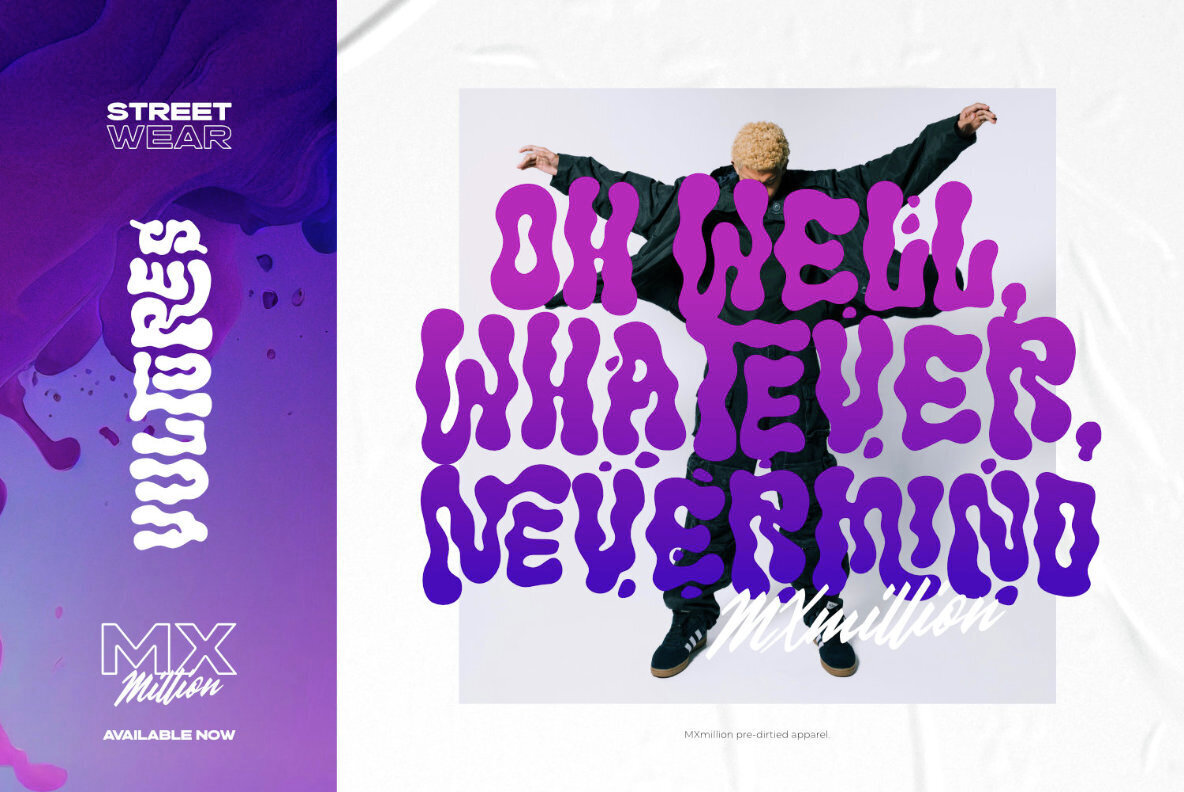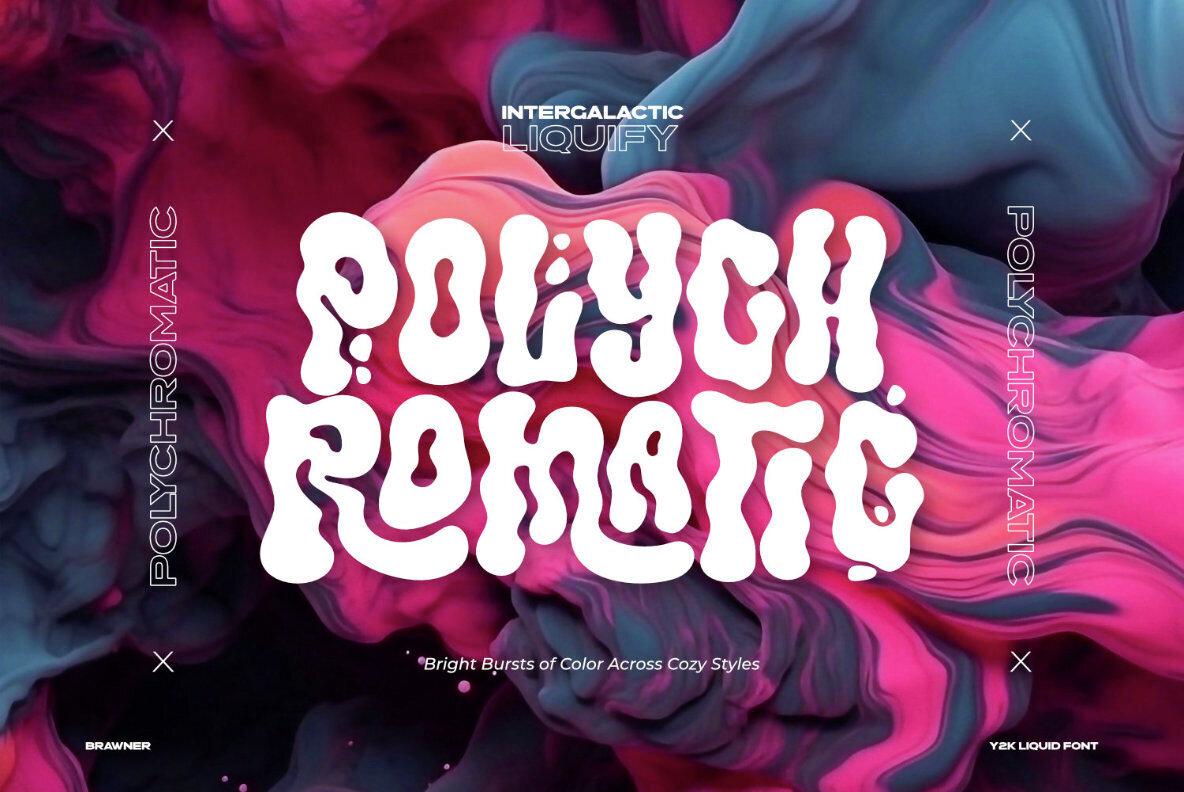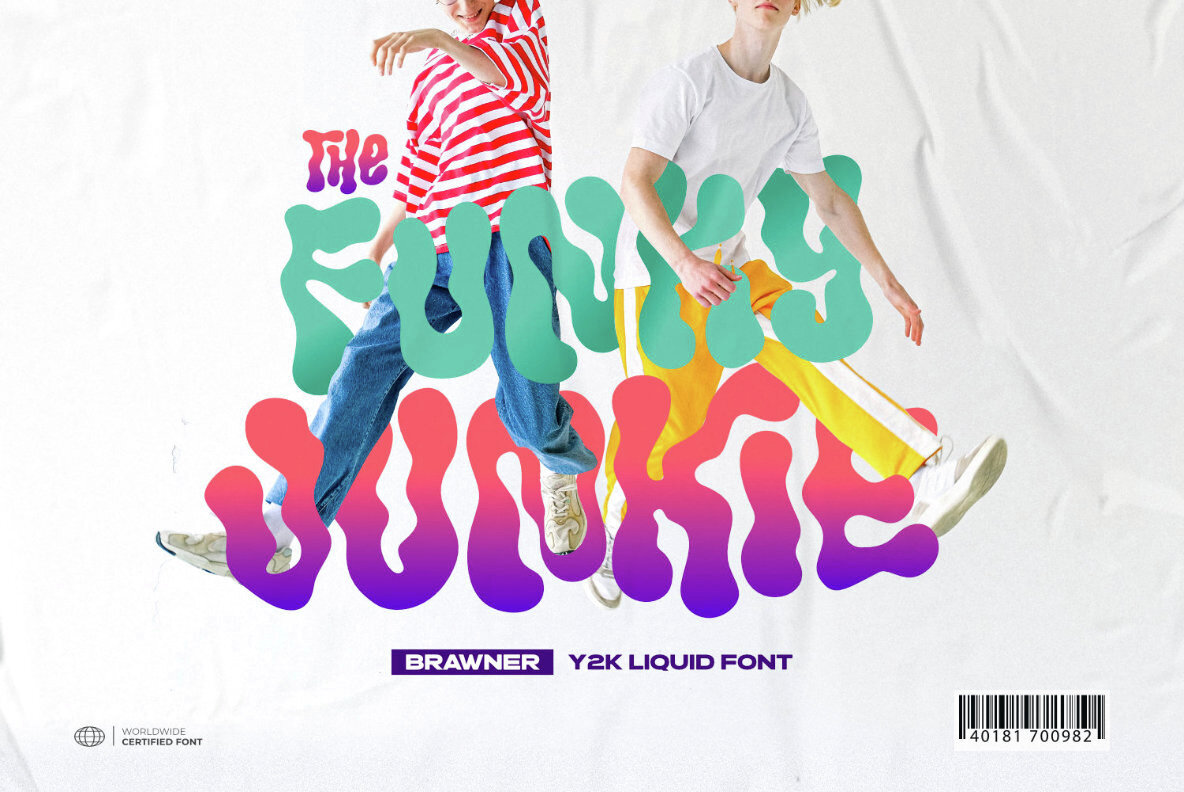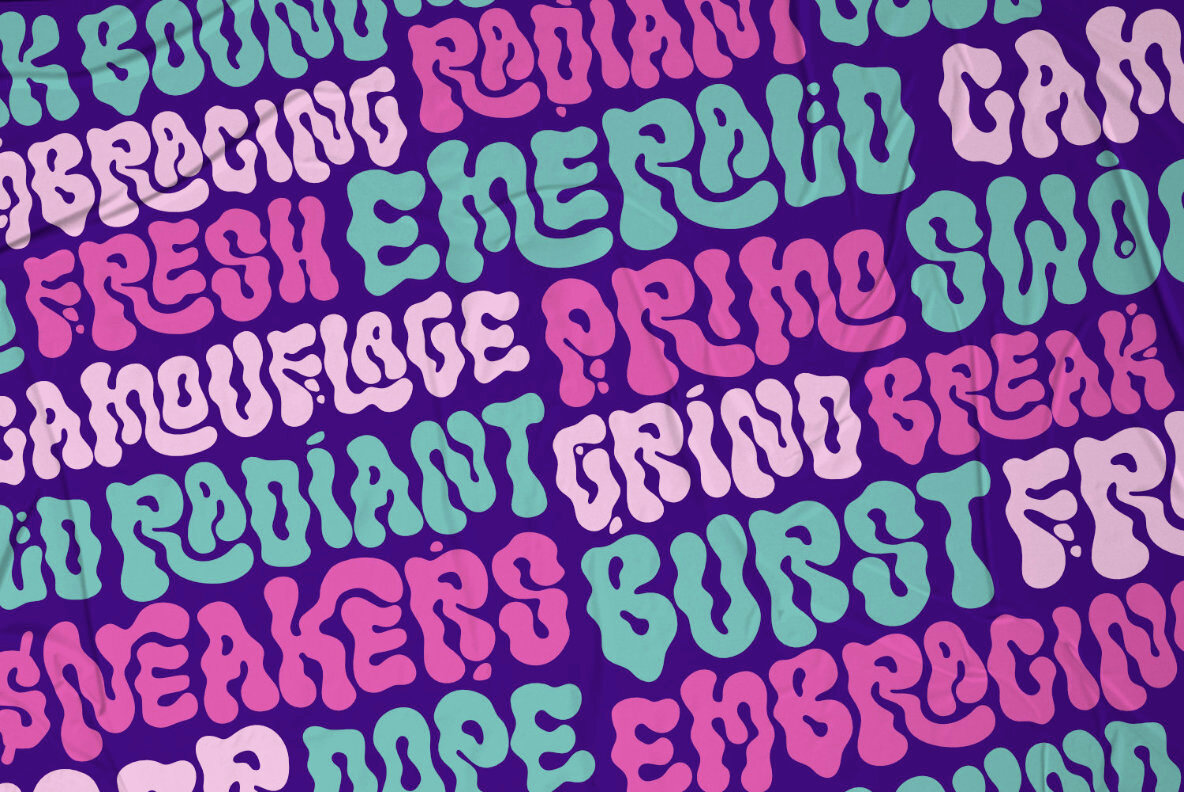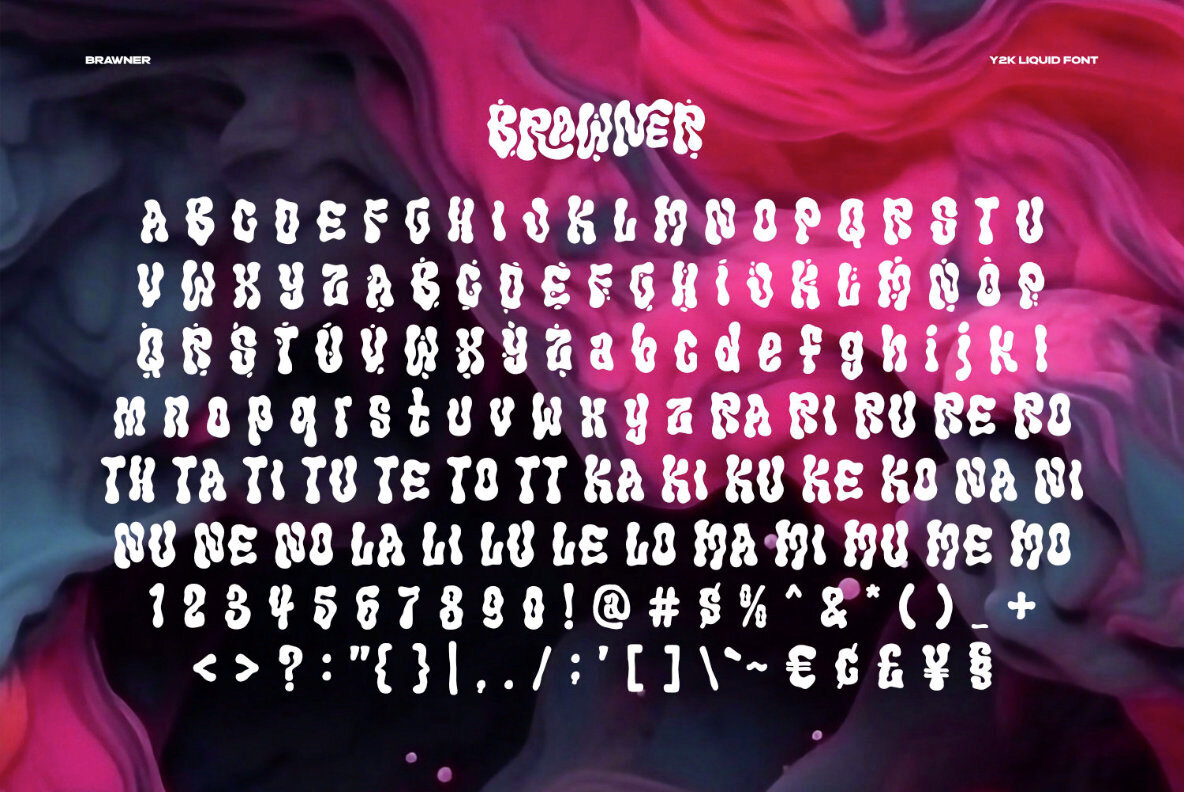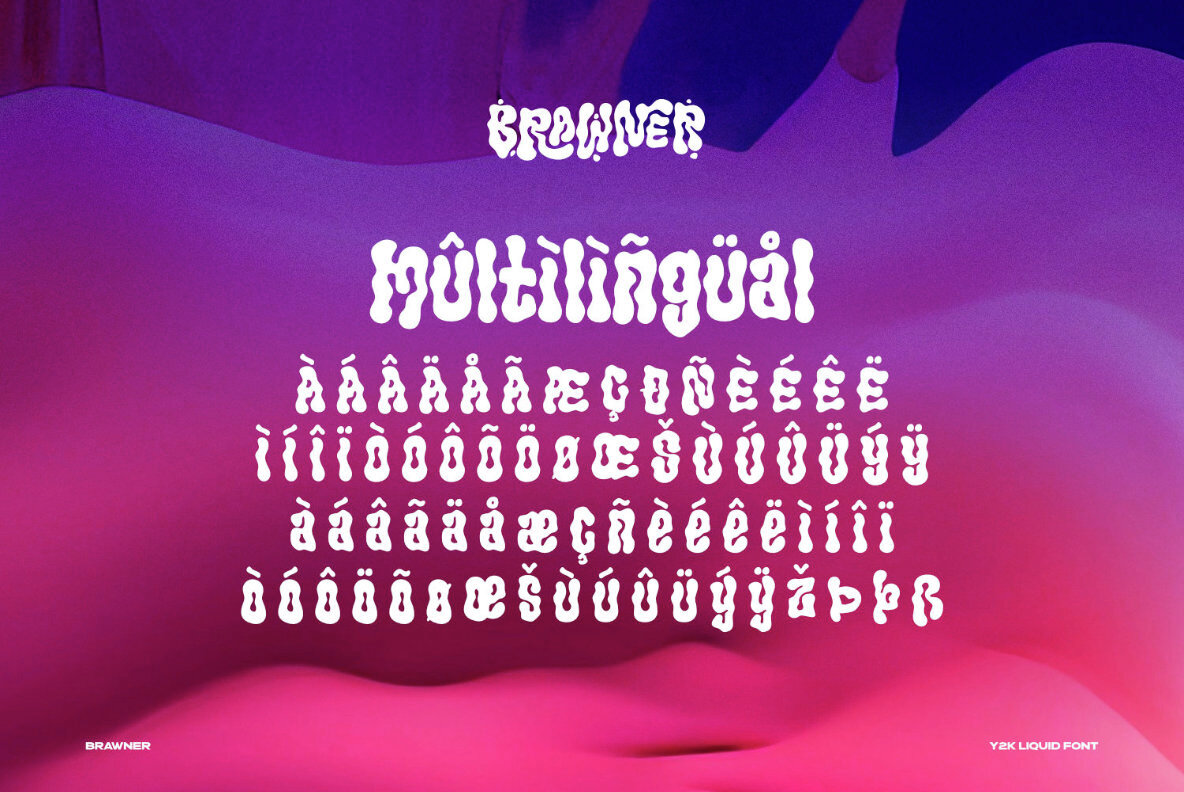
Brawner Font
Brawner Regular
Brawner is the ultimate Y2K font with a liquid edge, developed for the fashion-forward and streetwear trendsetters. Brawner's flowing shapes encourage movement and vitality, resulting in a visual experience as bold and edgy as the streetwear culture it embodies. The font's liquid features offer a touch of avant-garde flair, making it an ideal match for firms looking to radiate cutting-edge style and stay ahead of the fashion curve. Brawner, the Y2K font that embodies the essence of hypebeast style and current streetwear, ushers you into the future of fashion. Elevate your brand's visual identity with a typeface that speaks the language of the fashionable, pushing limits and establishing trends with each letter. This font is very suitable for making a streetwear brand, poster, magazine layout, fashion design, quotes, or simply as a stylish text overlay to any background image. What's Included?Proudly present Brawner - Y2K Liquid Font, created by ikiiko